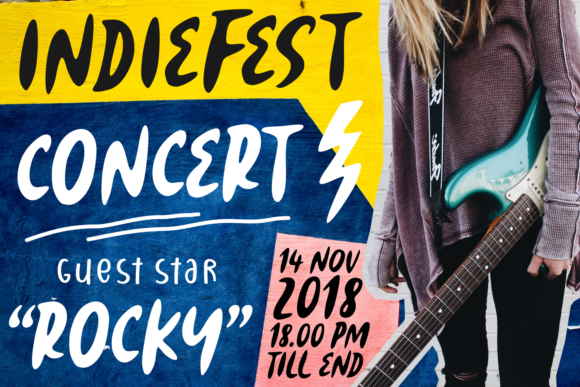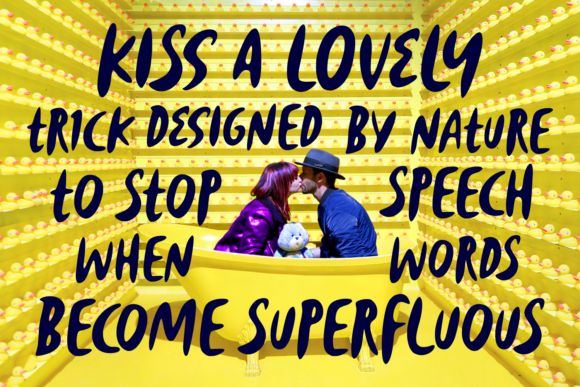
Introduction to Reborn Revolt Font
Have you ever been in the midst of a creative project, only to find that the perfect font is just out of reach? The frustration of scrolling through endless options, searching for that one special typeface that elevates your design to the next level. Well, we’re here to tell you that your search is over – meet the Reborn Revolt Font, a bold and striking handwritten typeface that’s sure to breathe new life into your creative endeavors.
With its exceptional readability and unique, playful touch, the Reborn Revolt Font is the perfect addition to any design project. Whether you’re working on a free download or a high-quality commercial design, this font is sure to make a lasting impression. And the best part? It’s available for free download, making it an accessible resource for designers of all levels.
Key Features of Reborn Revolt Font
- High-quality, professional font design perfect for creative projects, including graphic design, digital art, and typography.
- Features a unique, bold design with a transparent background, allowing for seamless integration into various design backgrounds.
- Perfect for designers looking to add a touch of edginess and modernity to their creative projects.
Honest Review: Reborn Revolt Font
I recently stumbled upon the Reborn Revolt Font, a free download that caught my attention due to its high quality design. Upon closer inspection, I found that this font is perfect for creative projects that require a bold, edgy touch.
Here are some features that I particularly appreciate about the Reborn Revolt Font: ✨
- Unique Characters: The font boasts an array of unique characters, including symbols and accents, that can add a touch of personality to any design.
- High-Quality Vectors: The font’s vectors are crisp and clean, making it suitable for use in high-resolution designs.
- Transparent Background: The font’s transparent background allows for easy integration with other design elements.
However, I did encounter some limitations with the Reborn Revolt Font: ⚠️
- Limited Font Sizes: The font’s available font sizes are limited, which may restrict its use in certain design contexts.
- Not Suitable for Body Text: Due to its bold and edgy design, the Reborn Revolt Font may not be suitable for use in body text or long passages of text.
Overall, I’m impressed with the Reborn Revolt Font’s potential as a design resource. Its unique characters and high-quality vectors make it a valuable addition to any designer’s toolkit. While it has some limitations, I believe it’s a great choice for creative projects that require a bold, eye-catching design.
Designing with Reborn Revolt Font
To get the most out of the Reborn Revolt Font, use it on a transparent background to create a high-quality design. This font is perfect for creative projects that require a bold and edgy look.
Use the Reborn Revolt Font in conjunction with other design elements, such as graphics and images, to create a unique and eye-catching design. Experiment with different font sizes and colors to achieve the desired effect.
The Reborn Revolt Font is ideal for use in graphic design, digital art, and even print materials like posters and flyers. It’s perfect for designers who want to add a touch of rebellion to their creative projects.